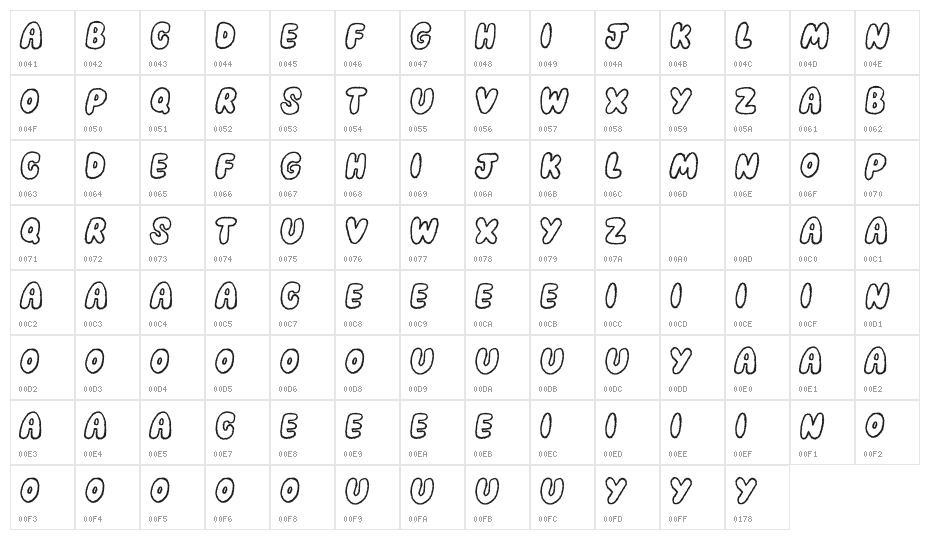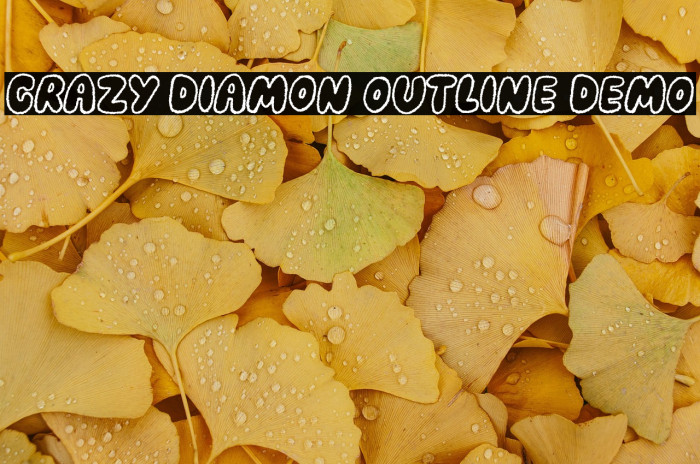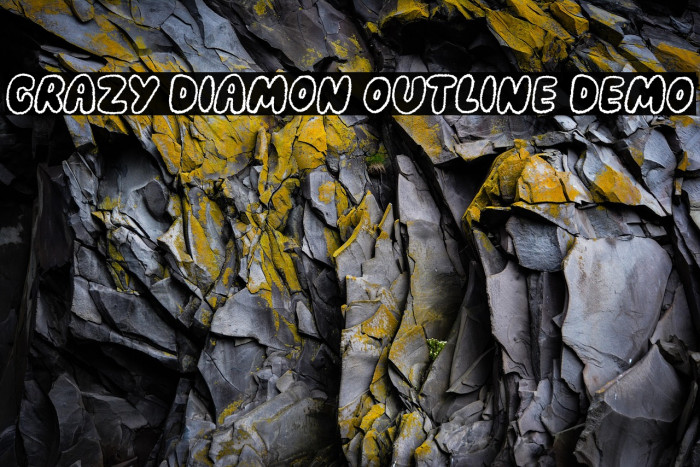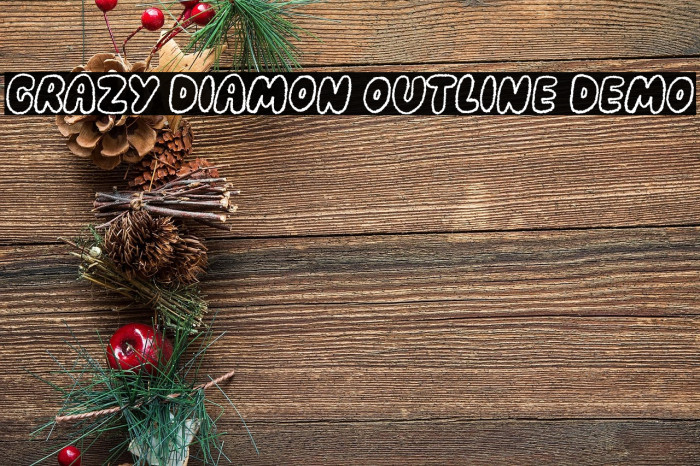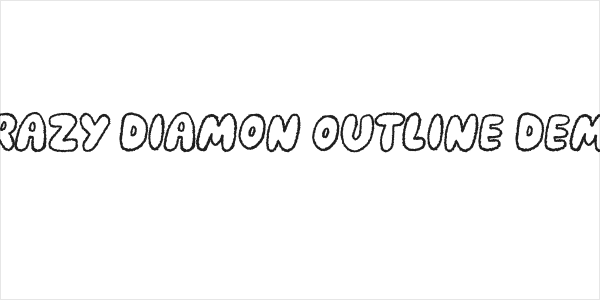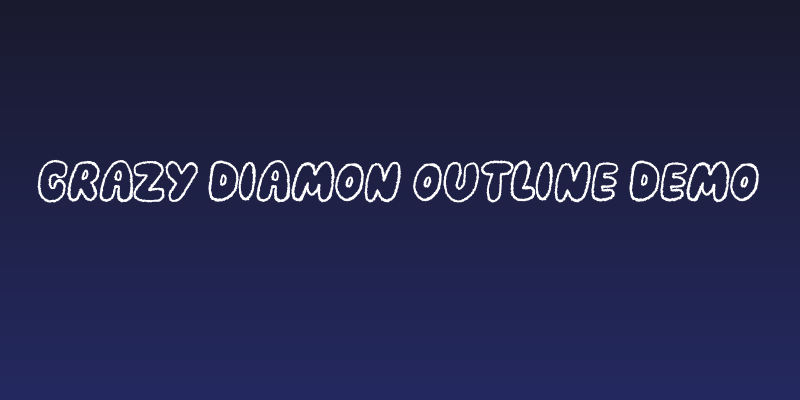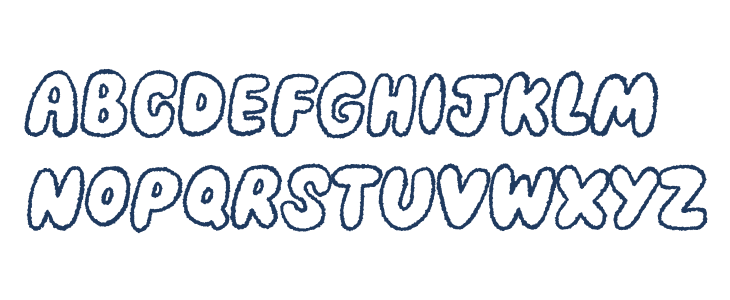
Crazy Diamon Outline DEMO Font
Crazy Diamon Outline DEMO Description
This font features a playful and bold outline style, characterized by its bubbly and rounded letterforms. The uppercase letters are consistent in their whimsical design, creating a sense of fun and creativity. The outlines are thick, giving the font a strong presence while maintaining a light-hearted feel. The absence of lowercase letters and numbers suggests a focus on decorative use, making it ideal for eye-catching designs. The font's unique style is perfect for projects that require a touch of personality and flair.
| Overall Style | Playful, Decorative |
| Proposed Projects | Ideal for children's book covers, playful posters, party invitations, and creative branding. |